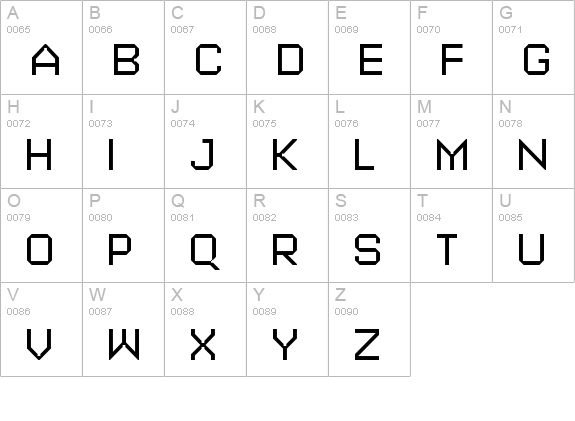
Alloy Light is a refined, elegant variant in the Alloy typeface family \xE2\x80\x94 well suited to elegant body text, refined sub-headings, and luxury branding.
Alloy Light font is a sleek and modern typeface that exudes elegance and sophistication. Its clean lines and minimalist design make it perfect for a wide range of design projects, from branding to editorial layouts. The light weight of this font adds a touch of delicacy and refinement to any text, making it an ideal choice for conveying a sense of style and sophistication. The best part about Alloy Light font is that it is completely free to download at FontsMarket.com. This means you can easily access this stunning font and use it in your projects without any cost. Whether you are designing a website, creating a logo, or working on a print publication, Alloy Light font will elevate your designs and give them a touch of class. Don't miss out on this fantastic opportunity to enhance your projects with this beautiful font - download Alloy Light today for free at FontsMarket.com!